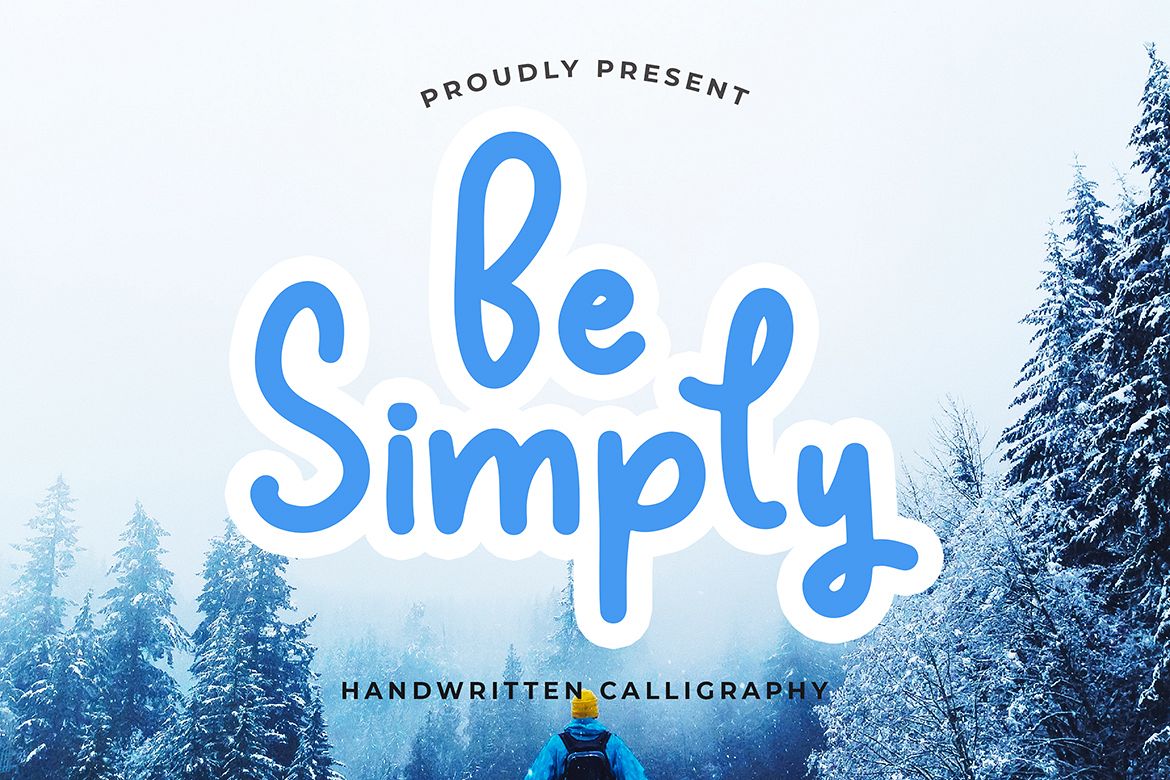
Be Simply Monoline Calligraphy Font
BeSimply
Be Simply Monoline Calligraphy Font
is Handwritten calligraphy with monoline style. this font is perfect
for branding projects, logo, tshirt designs, social media posts,
advertisements, product packaging, product designs, label, watermark,
invitation, stationery and any projects